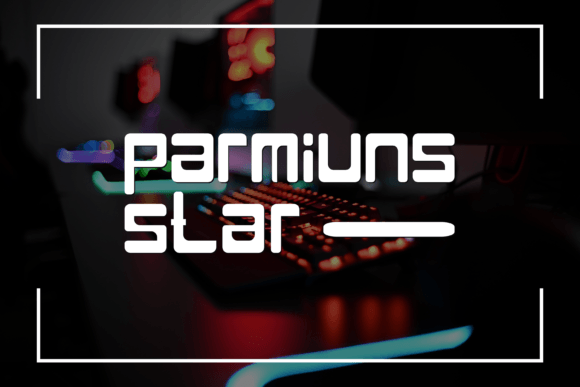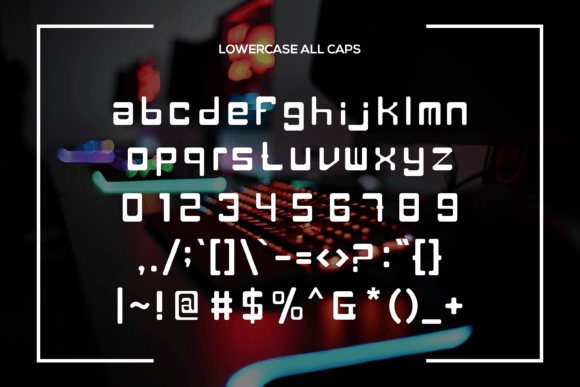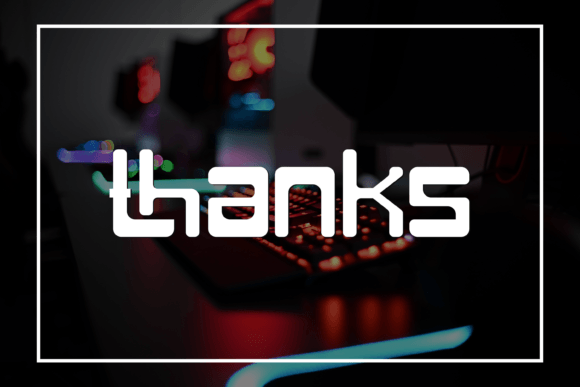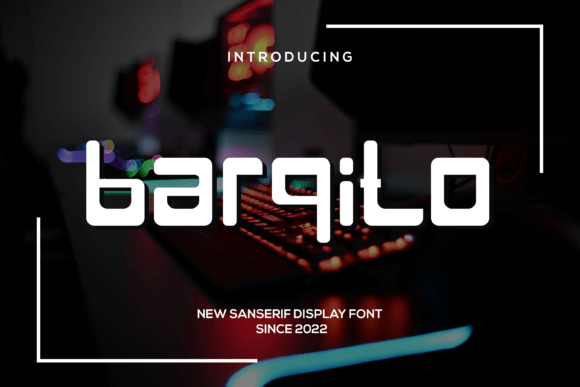
Introducing Barqito Font: The Ultimate Sans Serif Display Font for Modern Designs
Are you tired of using the same old fonts in your design projects? Look no further! Barqito Font is here to revolutionize your typography with its cool, modern, and incredibly interesting sans serif display font. With Barqito, you can add a touch of sophistication and style to your projects, and we’re confident you’ll love the results!
What is Barqito Font?
Barqito Font is a sans serif display font that boasts a unique and captivating design. Its clean lines, precise curves, and carefully crafted letterforms make it perfect for headlines, titles, and short texts. Whether you’re working on a branding project, a website, or a print design, Barqito Font is sure to make a statement.
Key Features of Barqito Font
- Modern and Fresh Design: Barqito Font features a modern and fresh design that’s perfect for contemporary designs.
- Sans Serif Style: The font’s sans serif style gives it a clean and minimalist look that’s ideal for a wide range of design projects.
- Incredibly Interesting: Barqito Font’s unique design elements make it incredibly interesting to look at, adding a touch of personality to your designs.
- Highly Versatile: The font is highly versatile and can be used for a variety of design projects, from branding and advertising to web design and print materials.
Why Choose Barqito Font?
With so many fonts available, why choose Barqito Font? Here are just a few reasons:
- Stand Out from the Crowd: Barqito Font’s unique design ensures that your projects will stand out from the crowd and grab attention.
- Easy to Read: Despite its modern and stylish design, Barqito Font is incredibly easy to read, making it perfect for use in a variety of contexts.
- Customizable: The font is highly customizable, allowing you to adjust the size, color, and style to suit your design needs.
- Time-Saving: With Barqito Font, you can save time and effort in your design projects, as the font is ready to use and requires no additional editing.
How to Use Barqito Font in Your Design Projects
Using Barqito Font in your design projects is easy! Here are a few tips to get you started:
- Pair it with Other Fonts: Barqito Font pairs well with other fonts, making it easy to create a unique and harmonious typography scheme.
- Experiment with Colors: The font looks great in a variety of colors, so don’t be afraid to experiment and find the perfect hue for your design.
- Use it for Headlines and Titles: Barqito Font is perfect for use in headlines and titles, where its unique design can really shine.
In conclusion, Barqito Font is a cool, modern, and incredibly interesting sans serif display font that’s perfect for designers and crafters looking to add a touch of style and sophistication to their projects. With its unique design, versatility, and ease of use, Barqito Font is sure to become a go-to font in your design arsenal. So why wait? Add Barqito Font to your projects today and experience the difference for yourself!